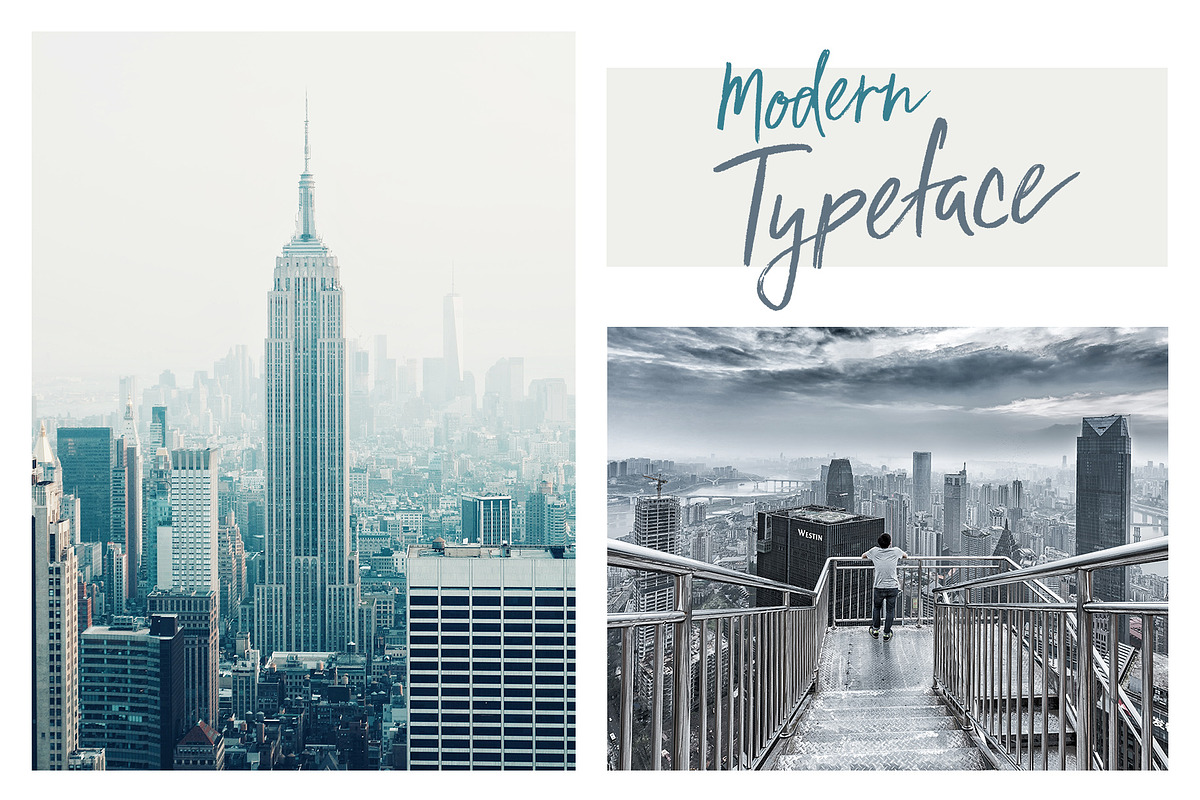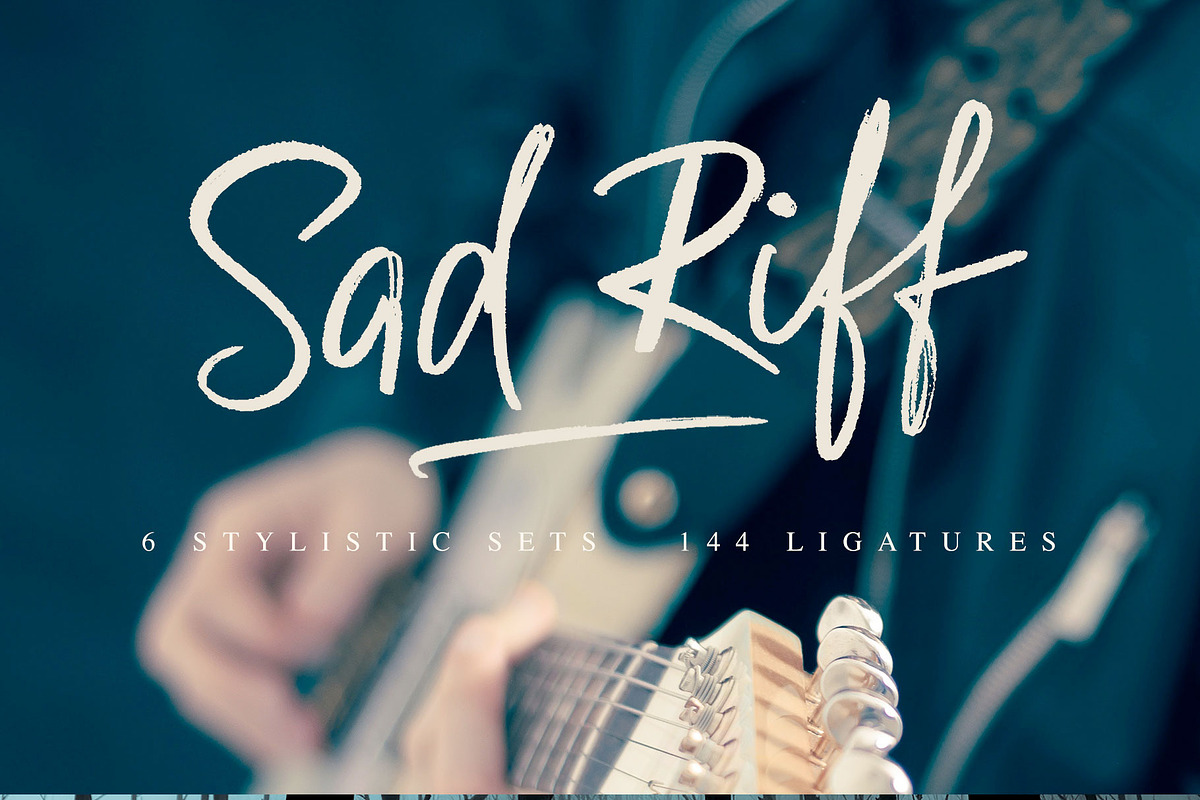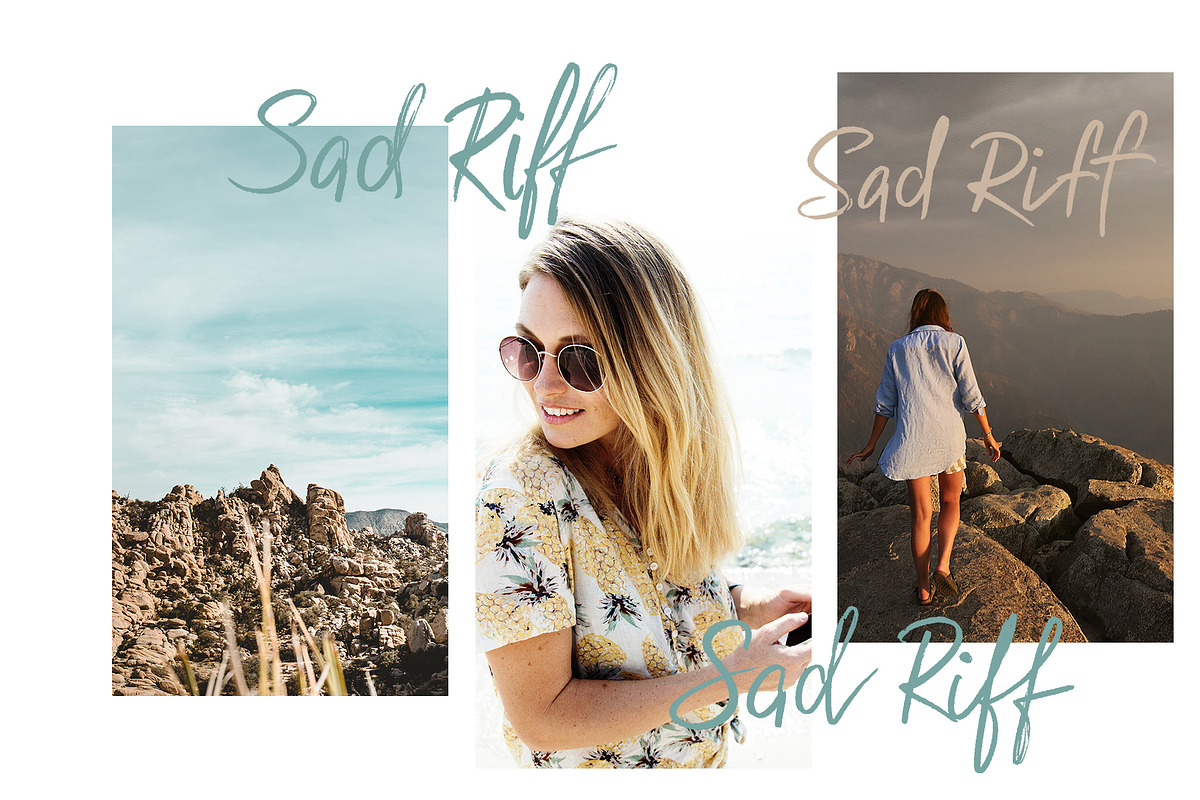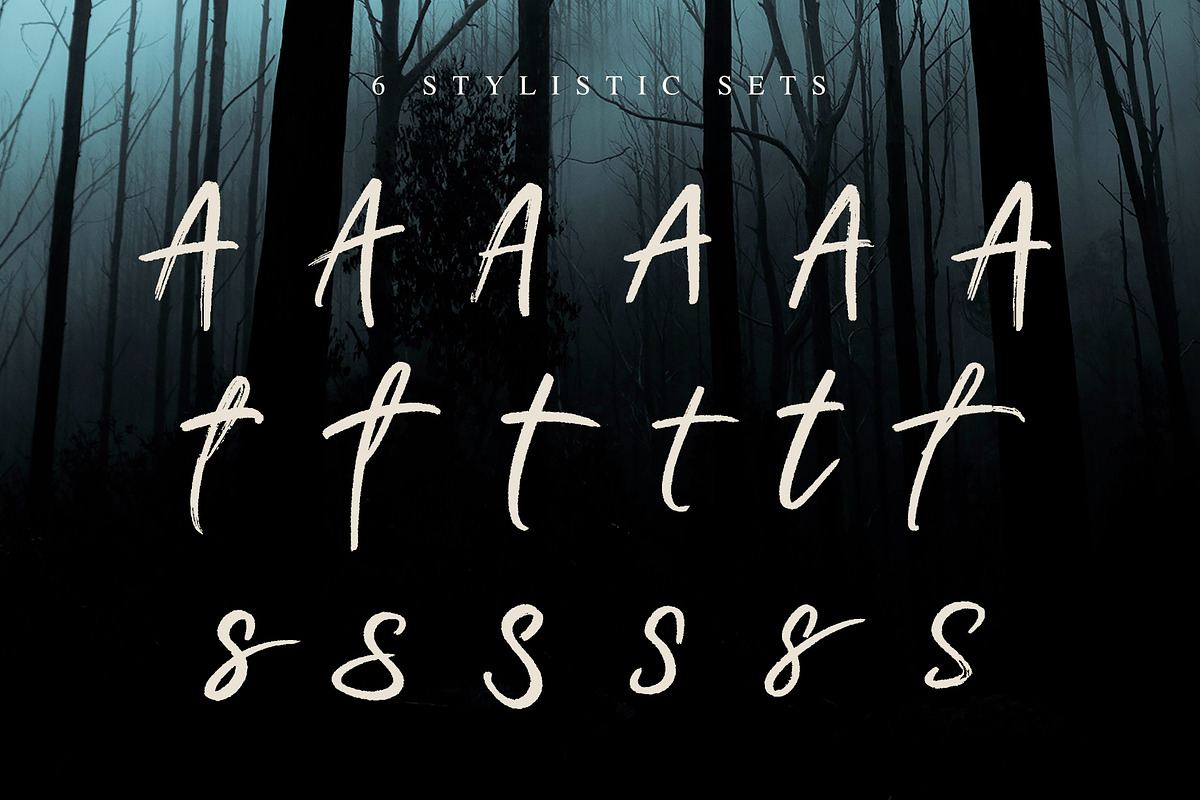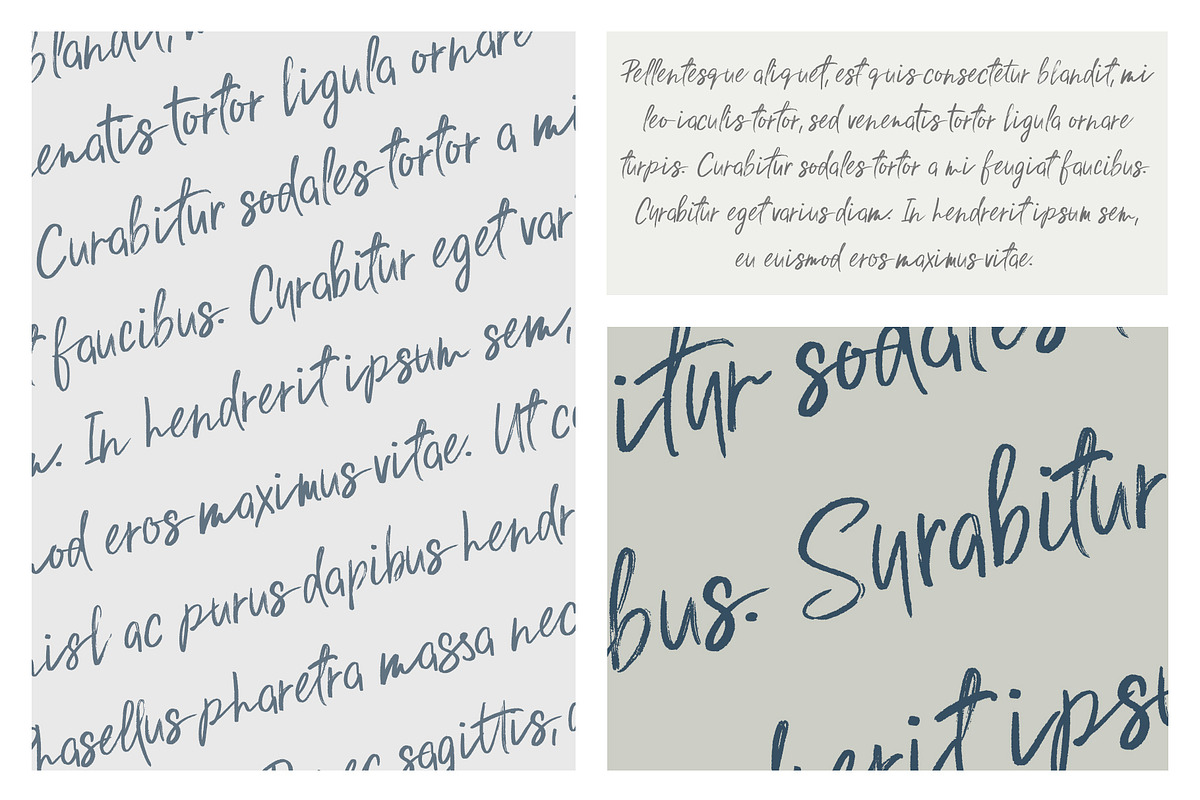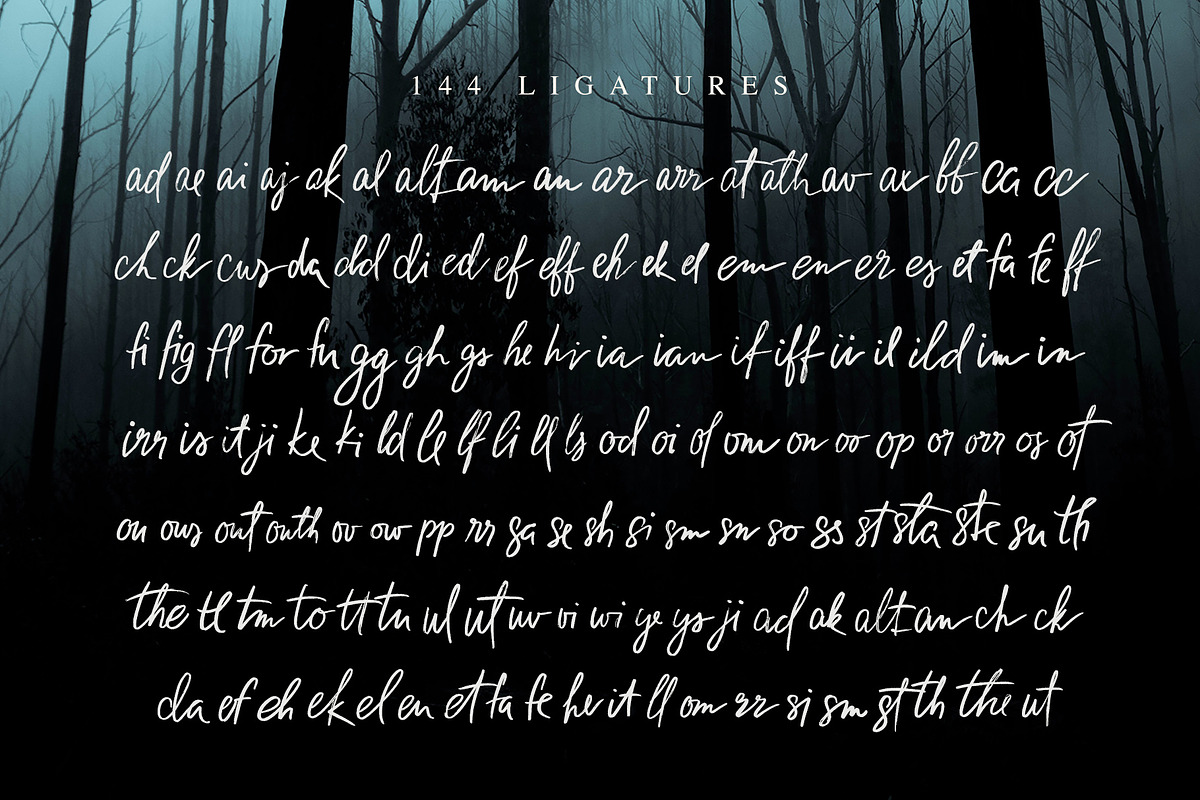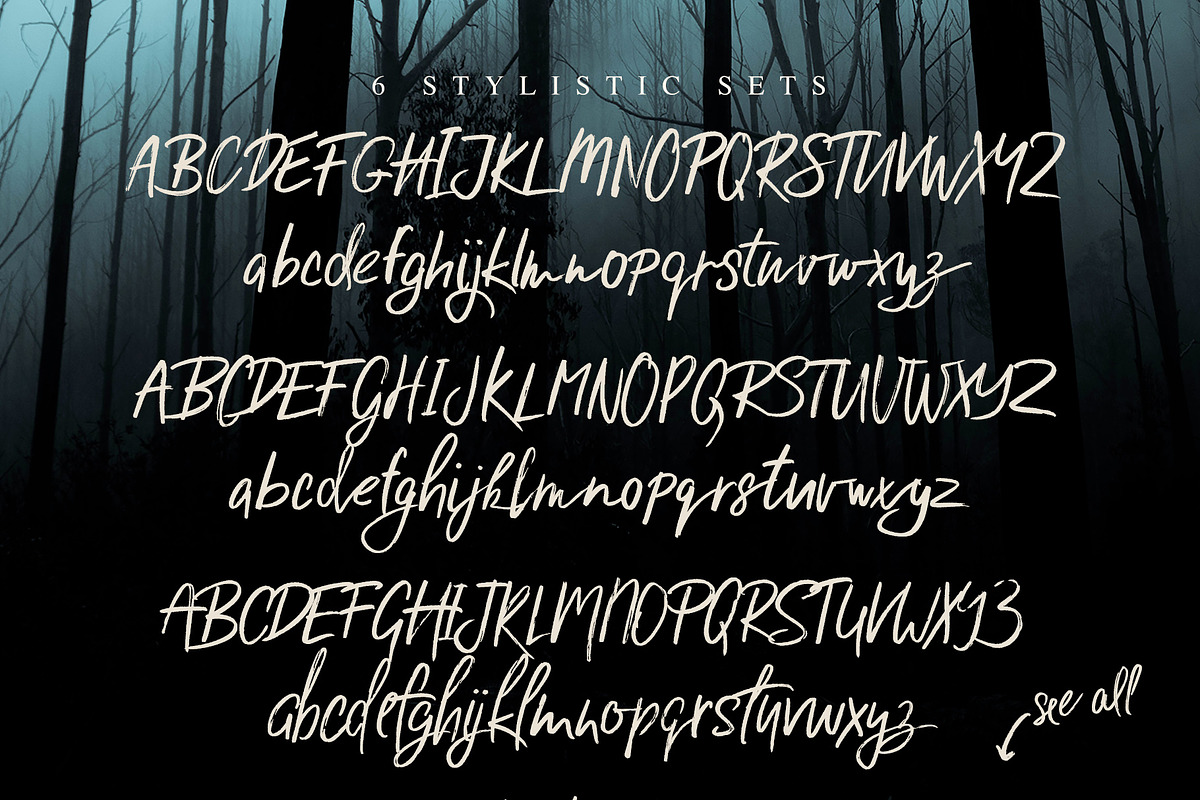
Sad Riff with 6 Stylistic Sets
Introducing Sad Riff - A modern fashionable handwriting script with a texture and some cool extras. What makes this font so special? It has whopping 6 full stylistic sets and 144 beautiful ligatures. Yes - each small or capital letter comes in 6 variants. Even numbers and some mostly used ligatures come in 2 styles! The production of such a huge font took a lot of time, but I believe it's absolutely worth it! I wanted to give you as much options as I could with this hugely versatile font.
whopping 6 full stylistic sets
- whopping 6 full stylistic sets
- 144 ligatures
- useful extras